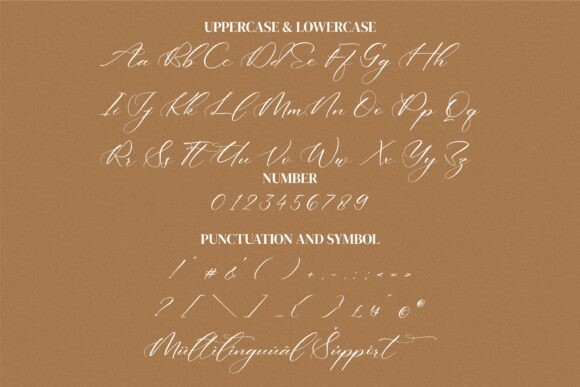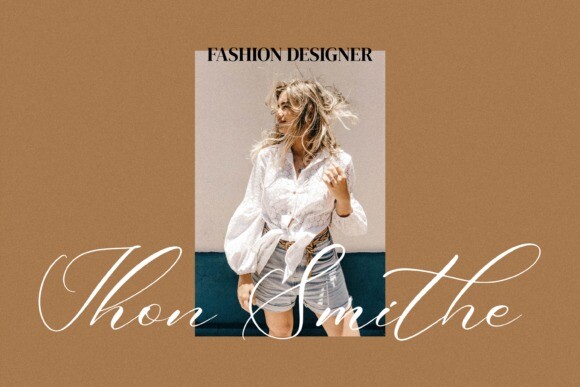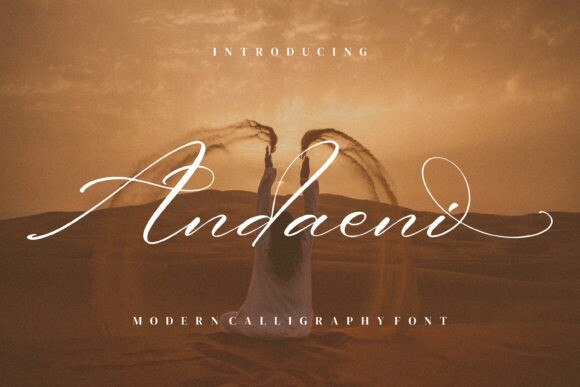
Andaeni Font
Andaeni Font is a premium script font suitable for any projects such as logos, branding projects, homeware designs, product packaging, mugs, quotes, posters, shopping bags, t-shirts, book covers, name cards, invitation cards, greeting cards, labels, photography, watermark, special events, and all your other luxury projects that need a premium signature taste.